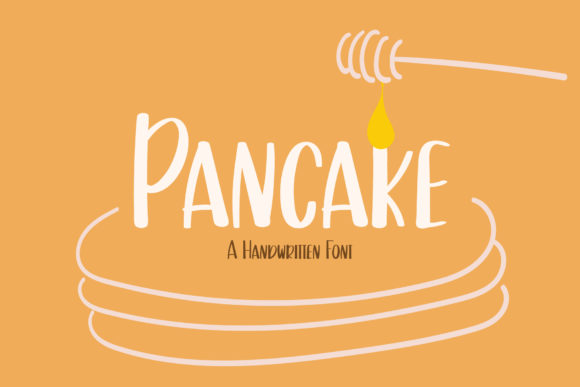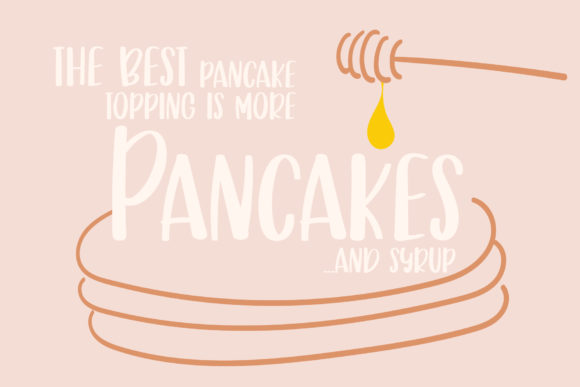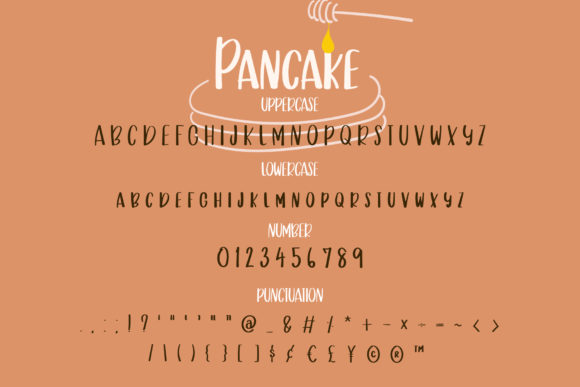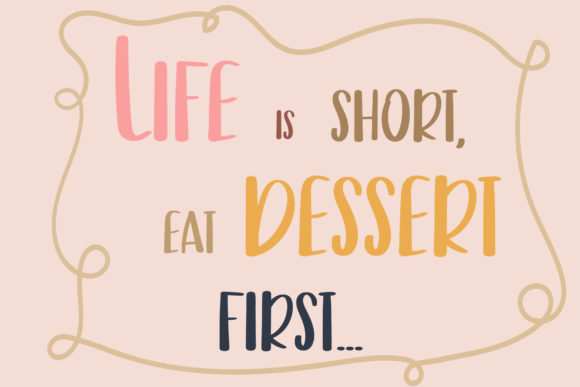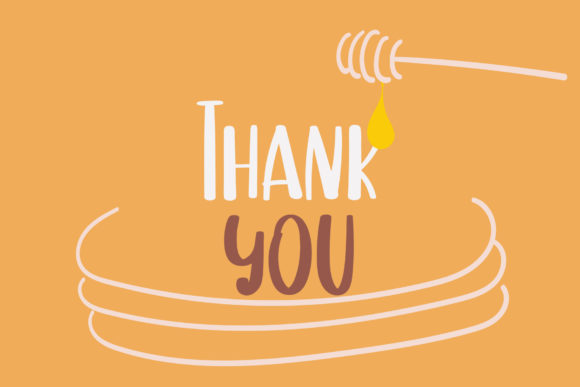
About Pancake Font
Pancake is a delightful and versatile handwritten font that brings a touch of sweetness and charm to any design project. Its natural and unique style opens up a world of creative possibilities, allowing you to explore various applications for this adorable font. Here are some exciting ways to use Pancake font and let your imagination run wild:
1. Bakery Branding: Use Pancake font in logos and branding materials for bakeries, cafes, and dessert shops to evoke a warm and friendly atmosphere.
2. Recipe Cards: Design cute recipe cards with Pancake font to share your favorite recipes or create a personalized recipe book.
3. Children’s Books: Create captivating typography for children’s books to engage young readers and complement charming illustrations.
4. Handwritten Quotes: Turn inspiring quotes into beautiful typography art using Pancake font for motivational prints or social media posts.
5. Greeting Cards: Design adorable greeting cards for birthdays, holidays, and special occasions using Pancake font for heartfelt messages.
6. Party Invitations: Create charming party invitations for baby showers, birthdays, and other celebrations with Pancake font.
7. Social Media Graphics: Use Pancake font to add a friendly and approachable touch to your social media posts, stories, and graphics.
8. DIY Crafts: Incorporate Pancake font in various DIY craft projects, such as scrapbooking, handmade cards, and gift tags.
9. Wedding Stationery: Design romantic wedding invitations, save-the-date cards, and thank-you notes with Pancake font for a personal touch.
10. Blog Headers: Use Pancake font in blog headers and titles to give your website a cozy and welcoming vibe.
11. Personalized Gifts: Create personalized gifts like custom mugs, tote bags, and phone cases using Pancake font.
12. Menu Design: Design playful and appetizing menus for restaurants or cafes with Pancake font to entice customers.
13. Posters and Flyers: Use Pancake font to design eye-catching posters and flyers for events, promotions, and fundraisers.
14. Nursery Decor: Design adorable nursery prints and wall art using Pancake font for a whimsical and cozy nursery.
15. E-cards: Create interactive e-cards with Pancake font to send virtual greetings and well wishes.
16. Handwritten Notes: Add Pancake font to digital or handwritten notes to send thoughtful messages to friends and family.
17. Party Decorations: Design charming party decorations, such as banners and signs, with Pancake font for a delightful ambiance.
18. Web Graphics: Use Pancake font to create cute web graphics and icons for your website or online projects.
19. Digital Planner Elements: Design cute digital planner stickers and elements with Pancake font for digital planners and journals.
20. Packaging Design: Incorporate Pancake font in product labels and packaging for a handcrafted and personalized look.
In conclusion, Pancake is a sweet and friendly handwritten font that can add a special touch to various design projects. From branding to party decorations, recipe cards to social media graphics, Pancake font offers endless creative opportunities. Let your imagination soar and enjoy exploring the versatility of Pancake font to bring a warm and inviting feel to your designs!